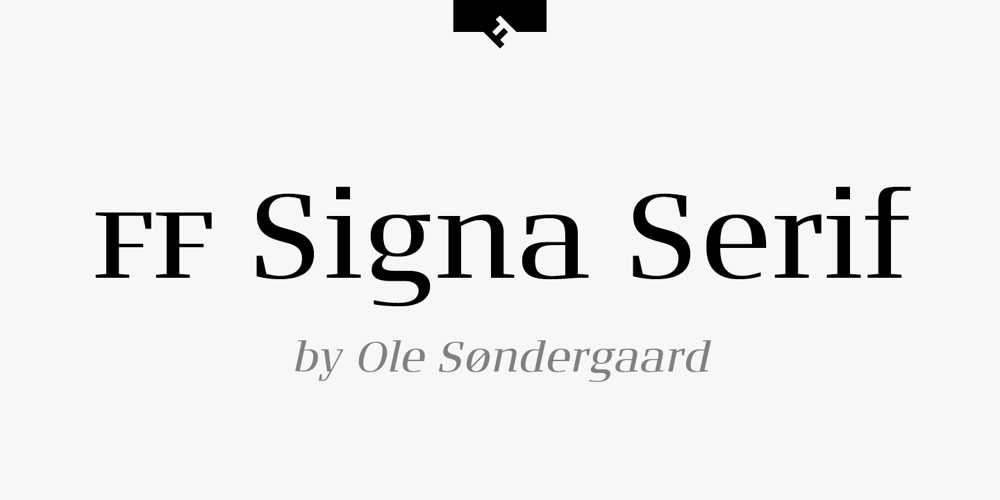
FF Signa Serif
FF Signa Serif font
FF Signa Serif Font Family was designed by Ole Berntsen Søndergaard and published by FontFont. FF Signa Serif contains 10 styles and family package options. Danish type designer Ole Søndergaard created this serif FontFont in 2005. The family has 10 weights, ranging from Light to Black (including italics) and is ideally suited for advertising and packaging, film and tv, editorial and publishing as well as logo, branding and creative industries. FF Signa Serif provides advanced typographical support with features such as ligatures, small capitals, alternate characters, case-sensitive forms, fractions, and super- and subscript characters. It comes with a complete range of figure set options – oldstyle and lining figures, each in tabular and proportional widths. This FontFont is a member of the FF Signa super family, which also includes FF Signa, FF Signa Correspondence, FF Signa Serif Stencil, and FF Signa Stencil.